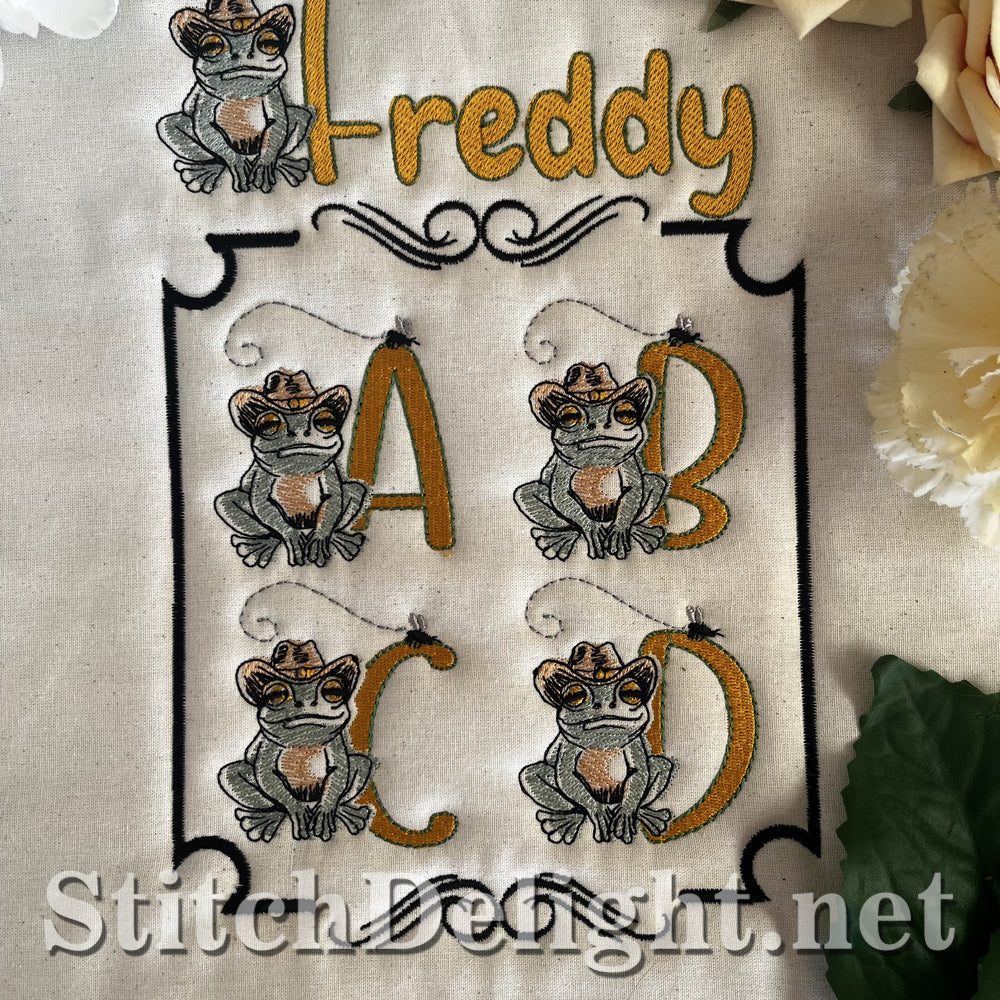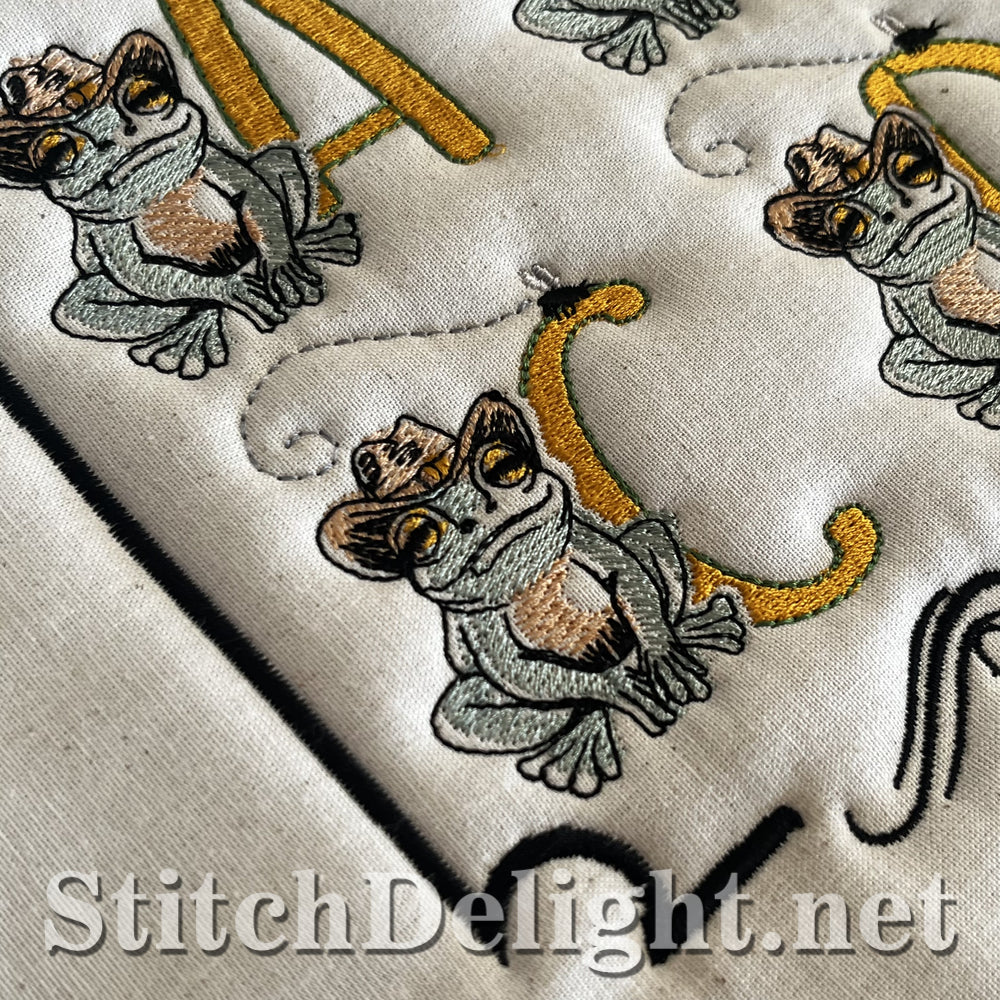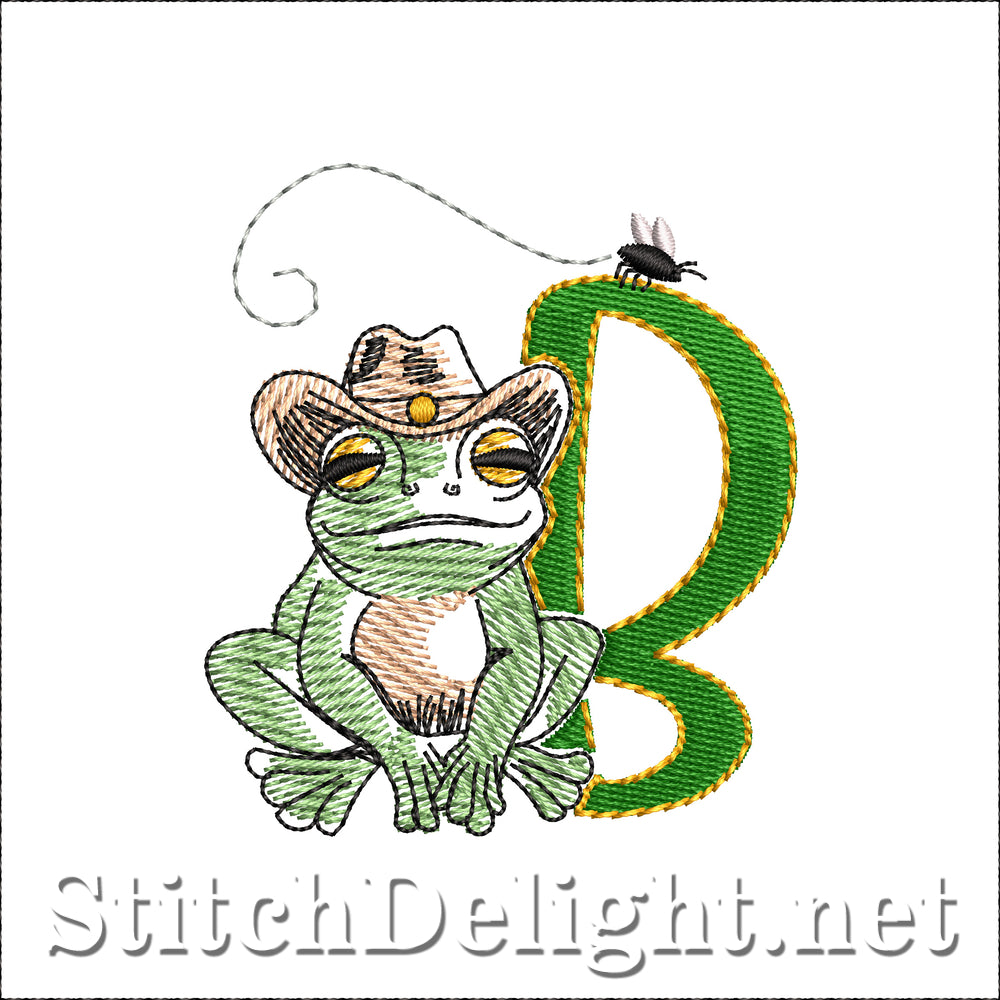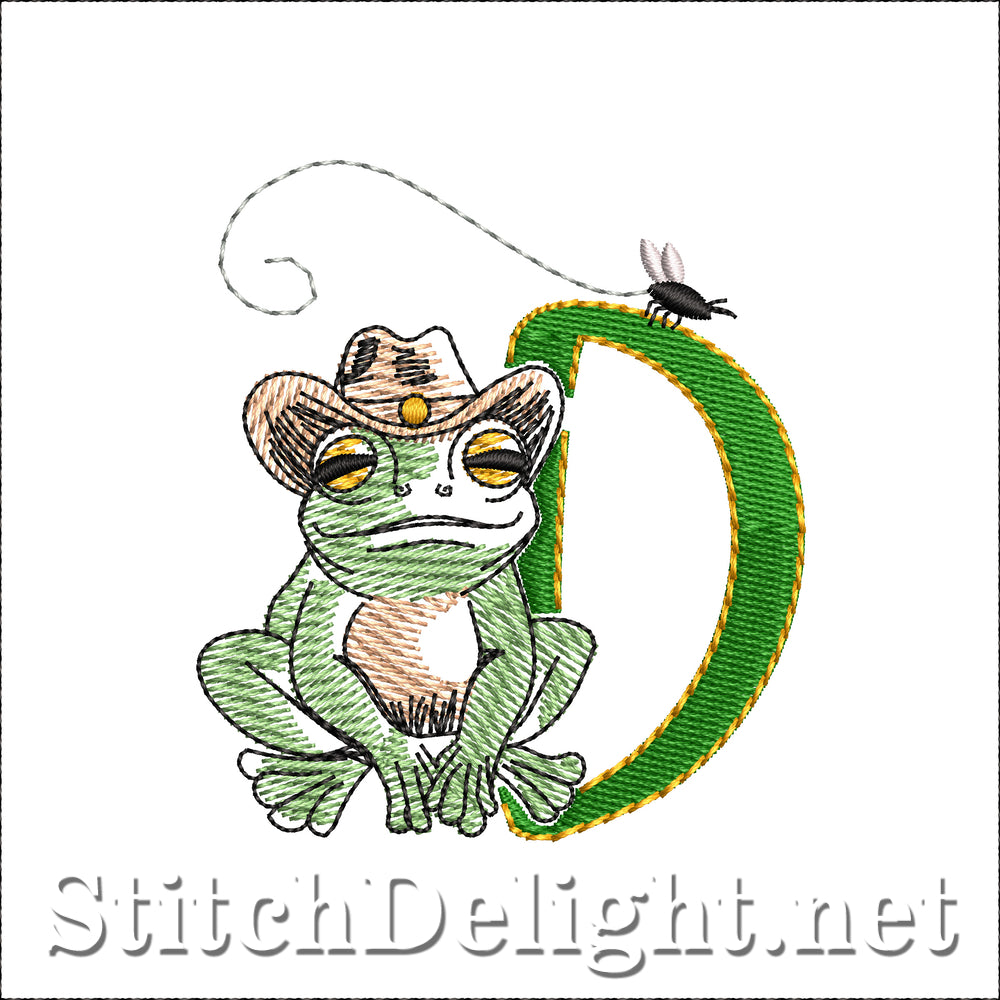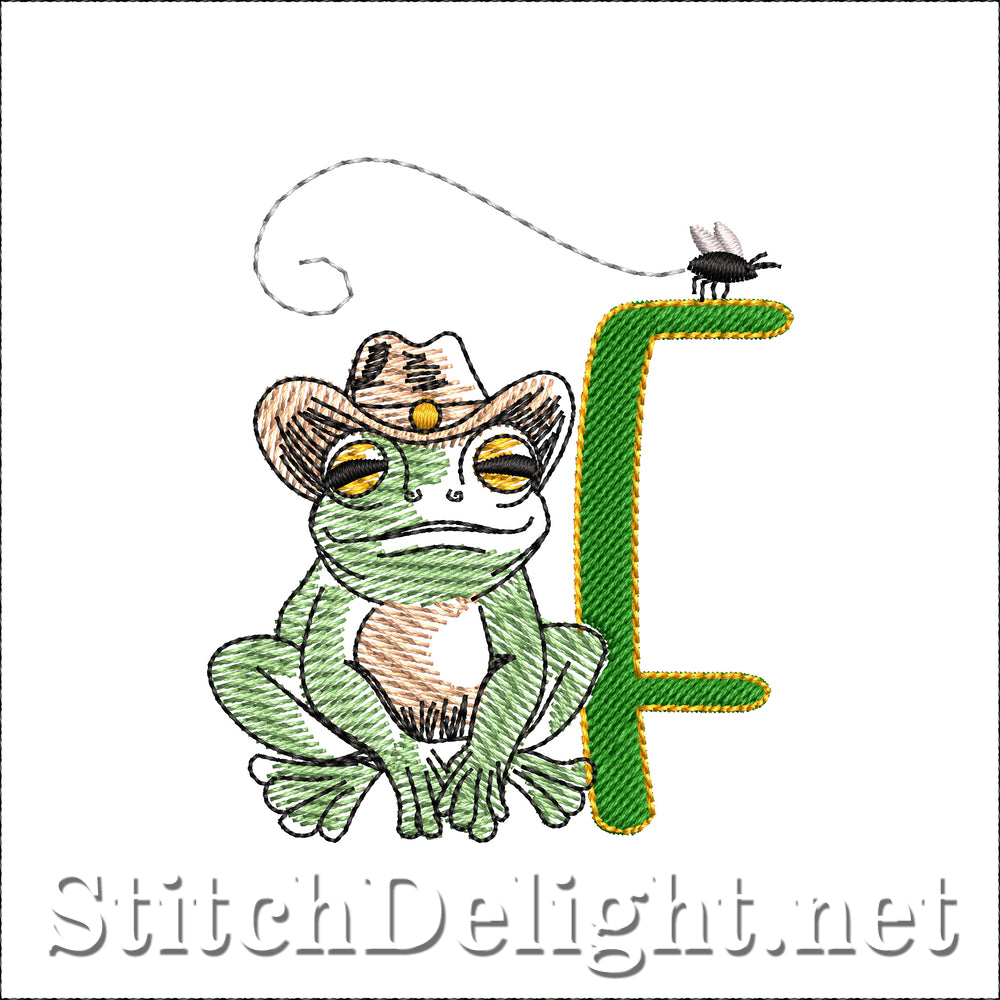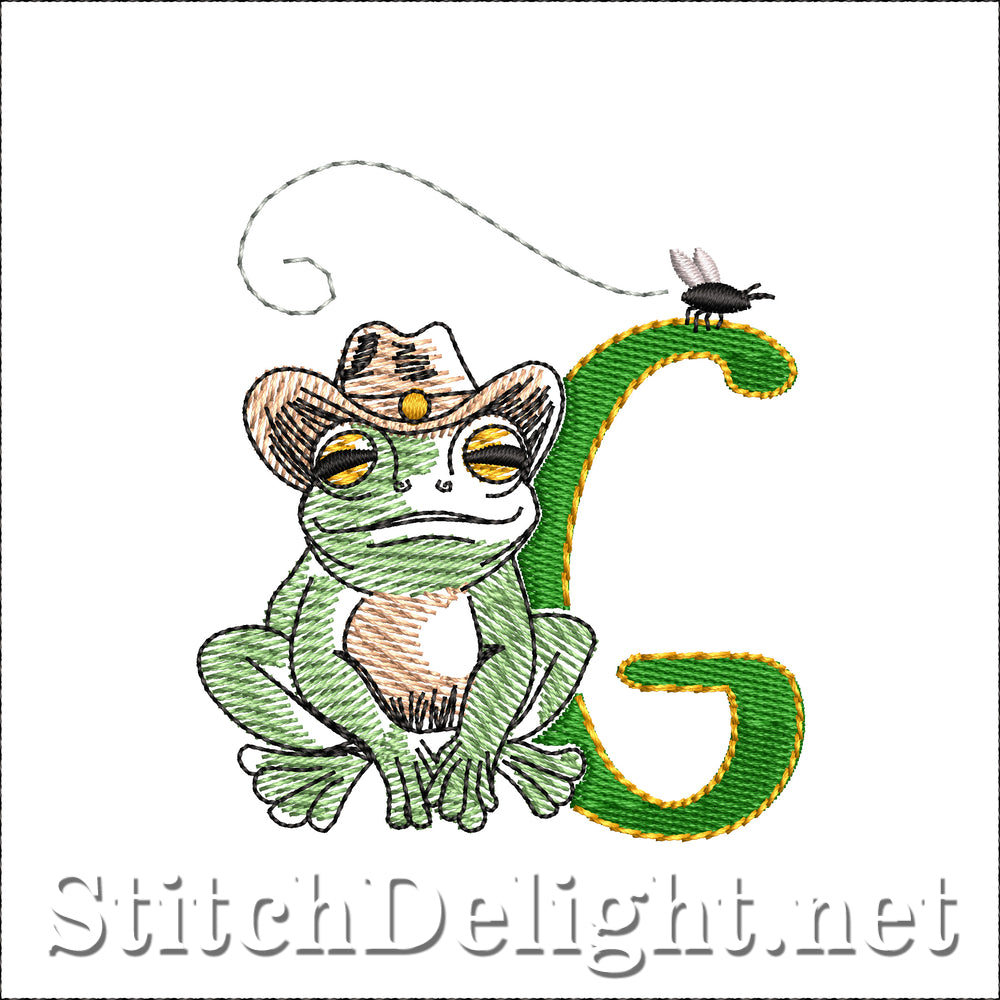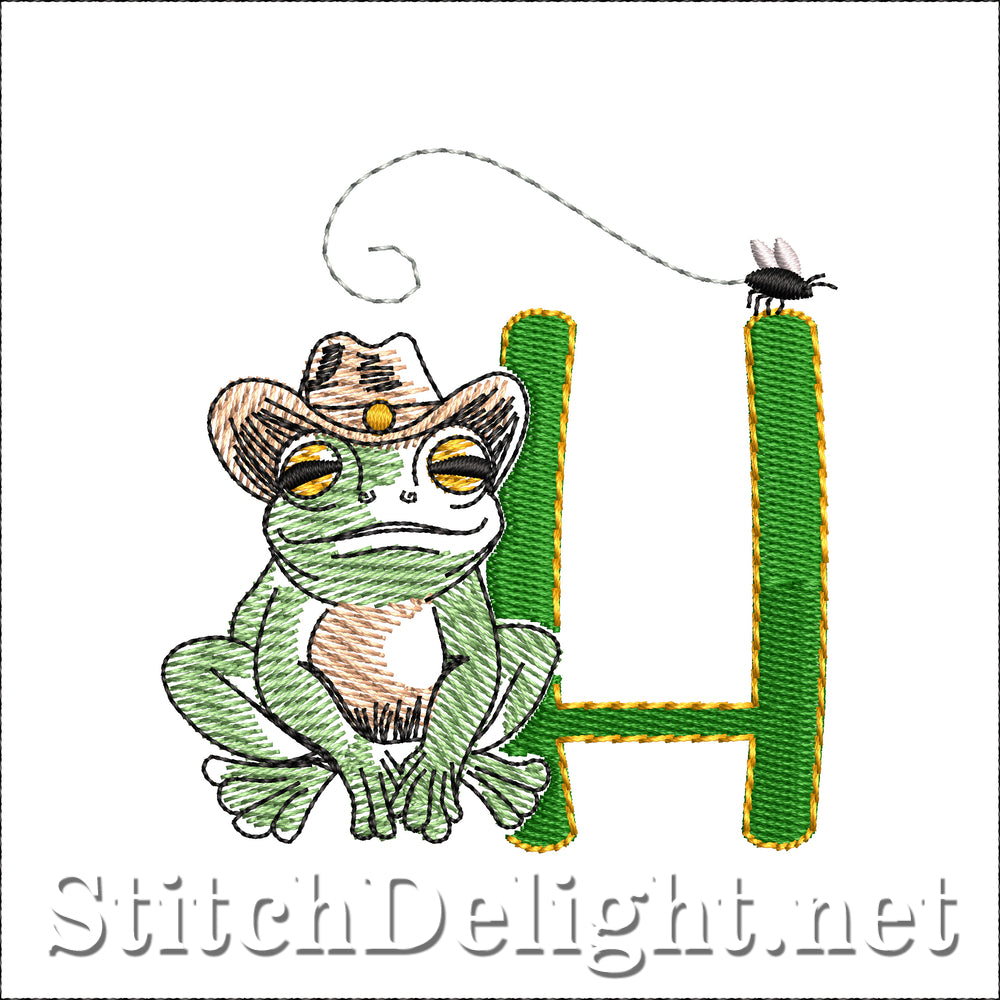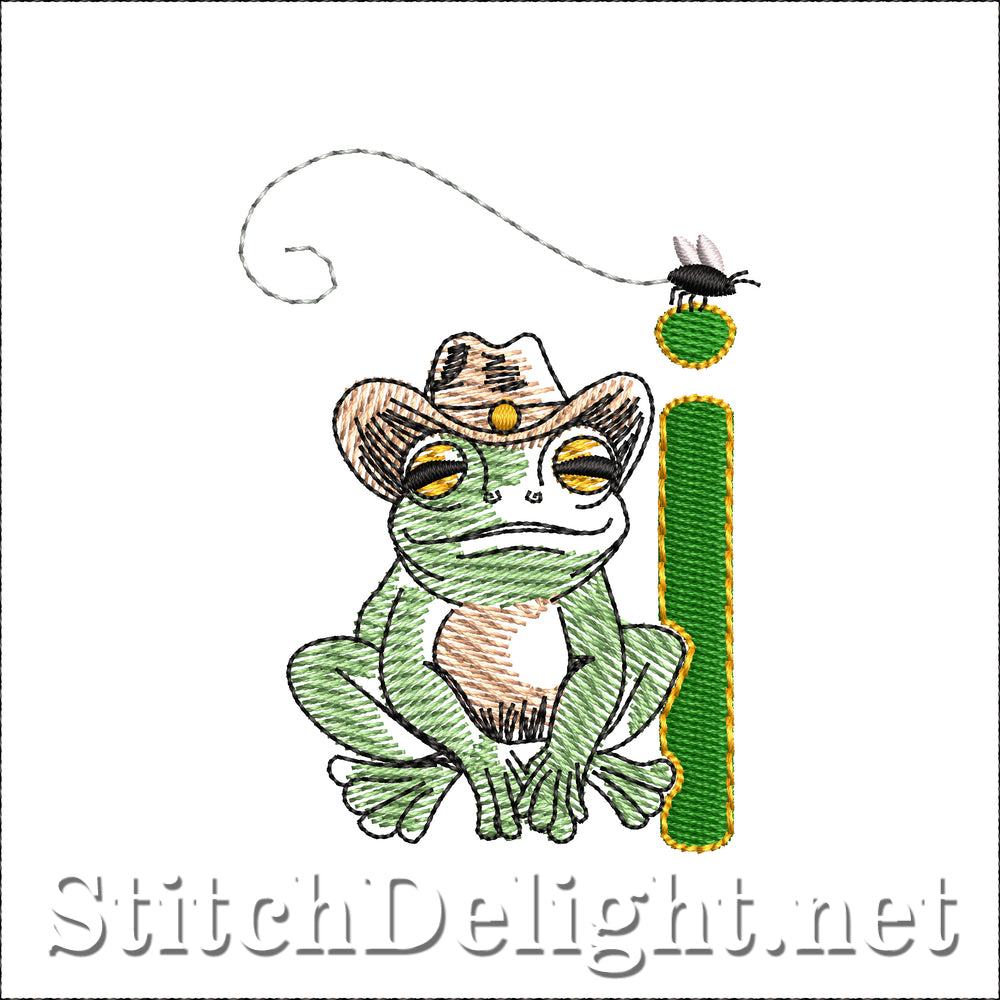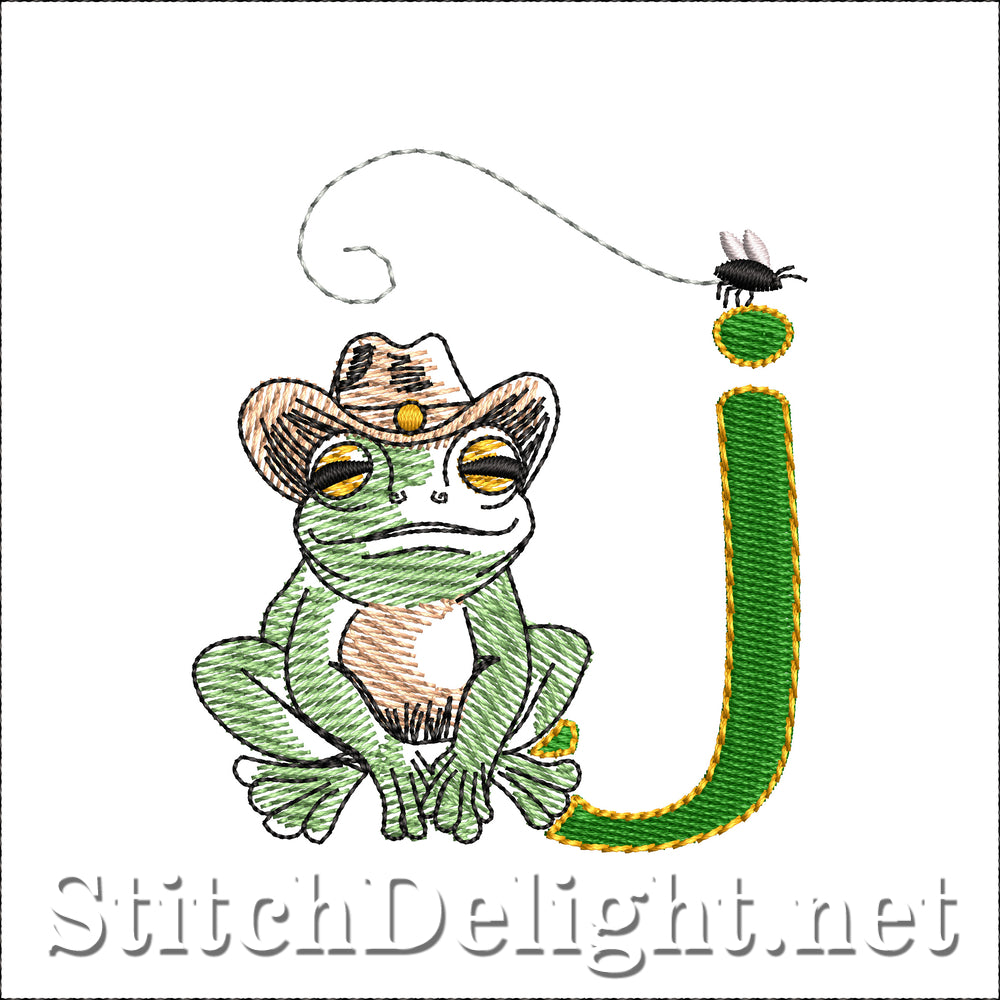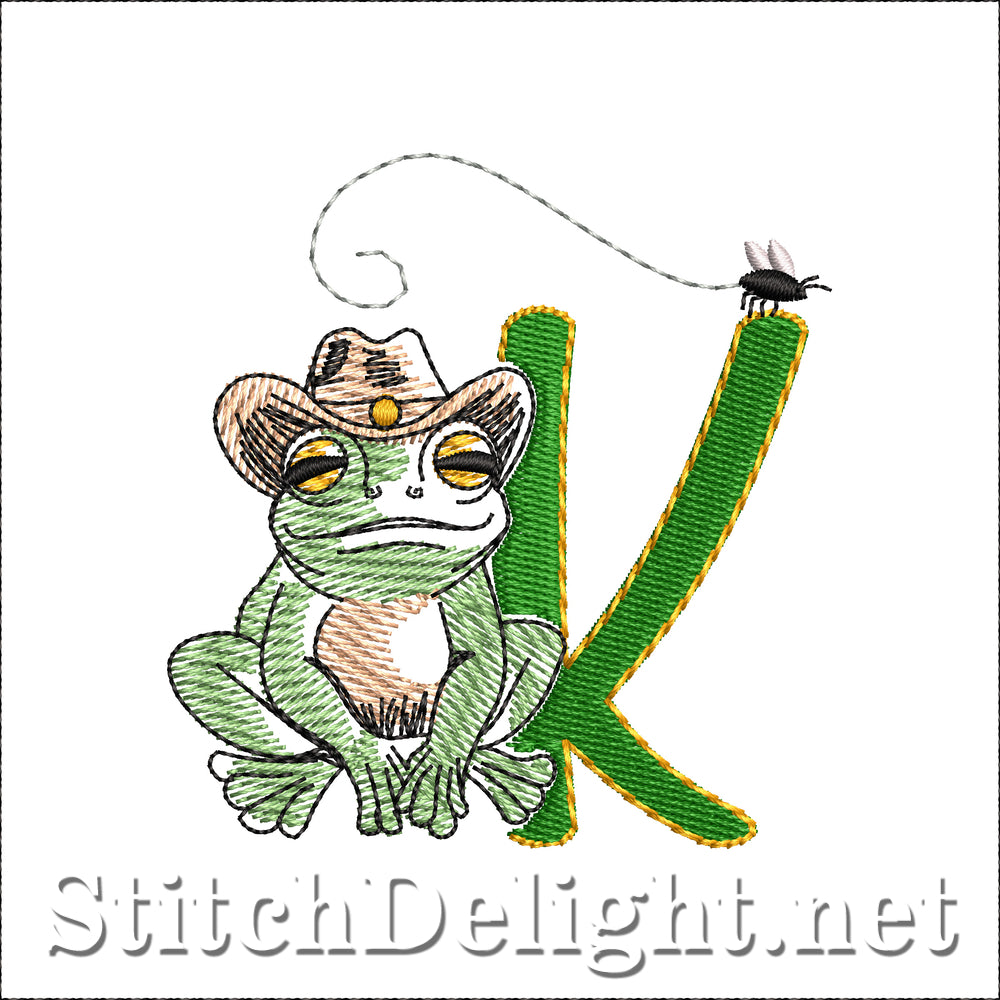
SDS3336 Froggy Font
Spring is in the air, and what better way to celebrate than with this fun and Tropical Font? This font features an adorable, cowboy-hat-wearing toad lounging on a lily pad, bringing a playful and lighthearted touch to any project.